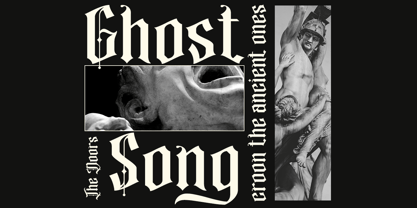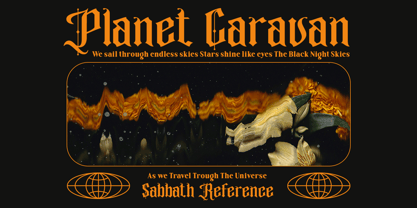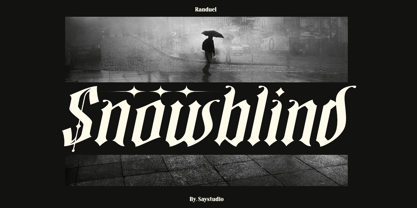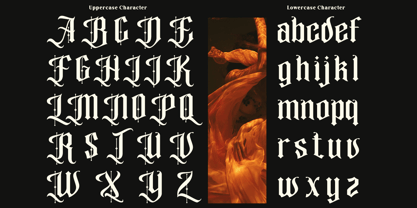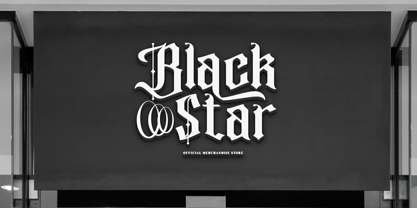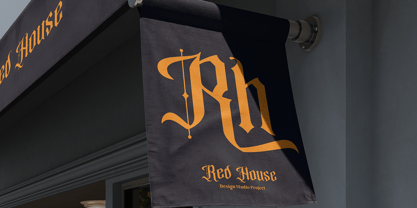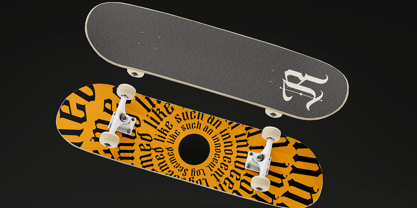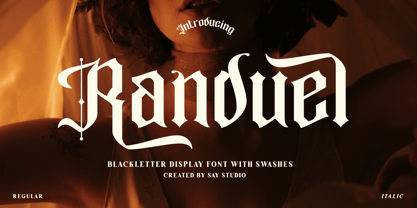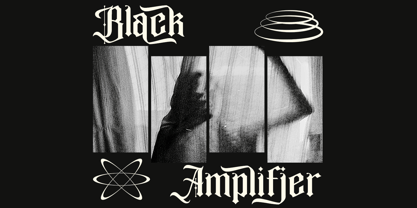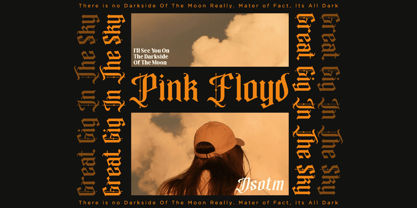
Randuel
by Say Studio
The Randuel Font Family was designed by Mussyayin and published by Say Studio. Randuel contains 2 styles and family package options.
Randuel is Blackletter display font with alternates swash, The font is inspired by the Old English Font used in Western Europe Style with a few combine to turn them into a bit of a modern bold style font. This font is reguler and italic character style with swashes. Perfect for Logotype, Headline, Newspaper, Book Cover, Certificate , Comic Beer label, Merchandise, Packaging Label, Badge/Emblem Logo, Tattoo and much more. File Included : - Randuel Regular - Randuel Italic - Stylistic Alternates - Multi Language Support Thanks, Have a nice day Say Studio